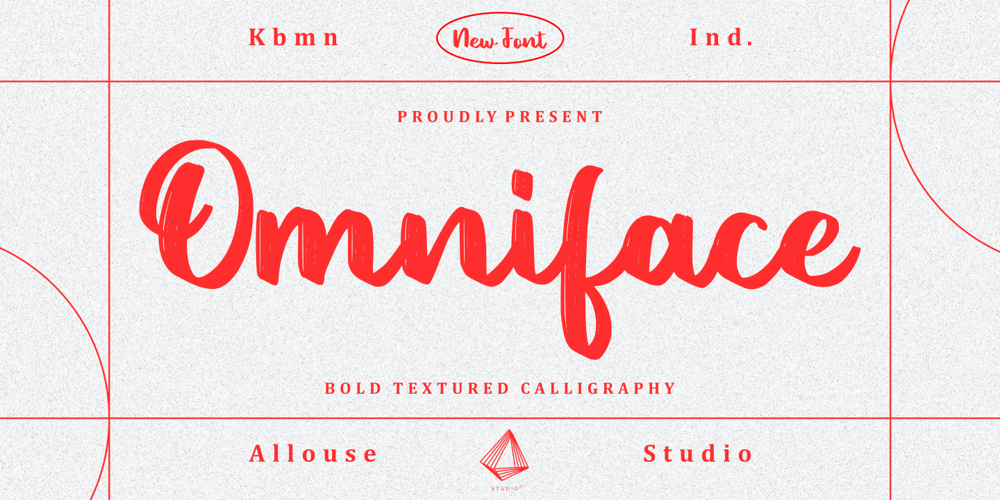
Omniface Font Family was designed by Fachrizal Yusuf and published by Allouse Studio. Omniface contains 1 styles and family package options. Omniface a Bold Textured Calligraphy Font.Omniface is perfect for any tittles, logo, product packaging, branding project, megazine, social media, wedding, or just used to express words above the background.Omniface also come with Multi-Lingual Support.Enjoy the font, feel free to comment or feedback, send me PM or email.